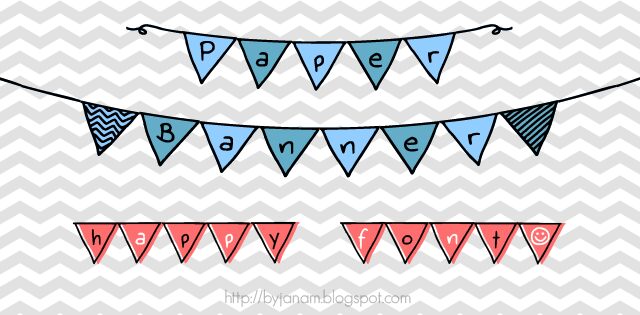
Paper Banner Light
Paper Banner Light is a dingbat font designed by maja.mint, evoking a sense of playful whimsy and vintage charm. Its triangular shapes, reminiscent of pennant flags or bunting, lend a festive, celebratory feel, making it well-suited for a variety of applications. From party invitations and event branding to scrapbooking and DIY projects, Paper Banner Light's distinctive style can add a touch of playful elegance to any design.
Its versatility extends to both digital and print mediums, allowing designers to incorporate this unique font into a wide range of creative endeavors.